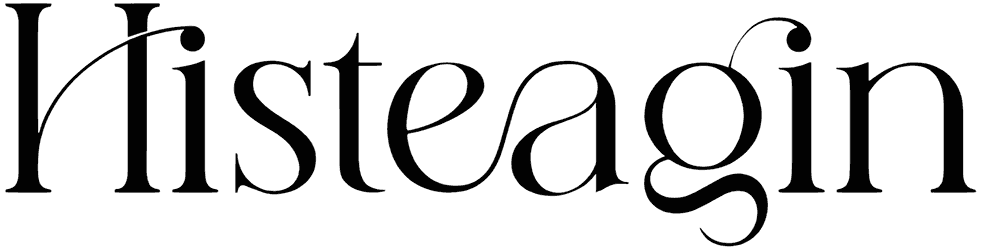
Histeagin Font
As a choice that can satisfy any taste, Histeagin is a suitable option for all kinds of designs. This serif font consists of ageless and pleasant letters that could make your design salient and confident. There is no support for numbers, but Histeagin will continue to be an apt option for lots of innovative layouts, such as logos, business cards, magazines, and the like.